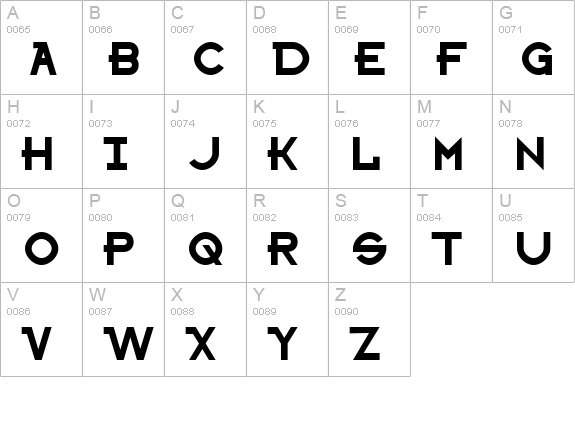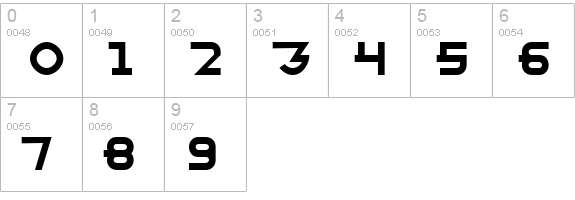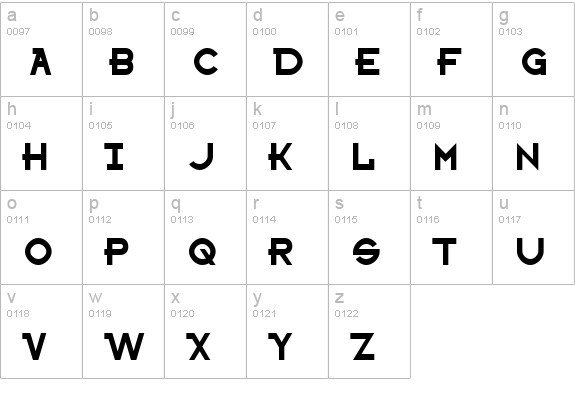
Sharon Apple Normal Font Details
Sharon Apple Normal is the standard, neutral variant in the Sharon typeface family \xE2\x80\x94 well suited to general body text, paragraphs, and standard typographic work.
Sharon Apple Normal font is a stunning typeface that effortlessly combines elegance with modernity. Its graceful curves and clean lines make it the perfect choice for a wide range of design projects, from sophisticated branding to eye-catching headlines. This versatile font offers a sense of professionalism and sophistication, making it an excellent choice for corporate materials, editorial designs, and luxury branding. With its well-balanced letterforms and exquisite details, Sharon Apple Normal font adds a touch of class and refinement to any project. One of the best aspects of Sharon Apple Normal font is that it is freely available to download at FontsMarket.com. This means that designers and creatives can easily access this beautiful font without having to worry about any additional costs. Whether you are a professional designer or someone who simply enjoys experimenting with typography, Sharon Apple Normal font offers a wonderful opportunity to enhance your creative projects at no expense. With its legible and timeless design, Sharon Apple Normal font is a true gem in the world of typography. Its versatility, elegance, and availability make it an excellent choice for both personal and commercial use. So why wait? Head over to FontsMarket.com now and download Sharon Apple Normal font to elevate your designs and add a touch of sophistication.